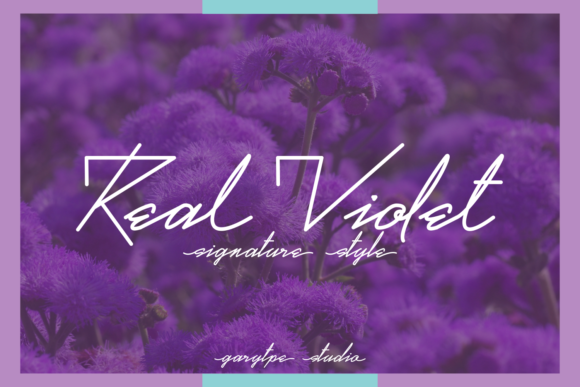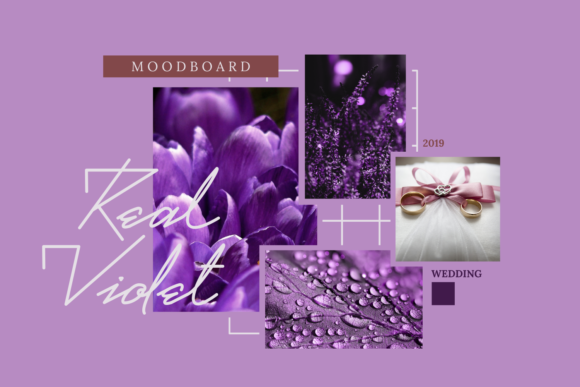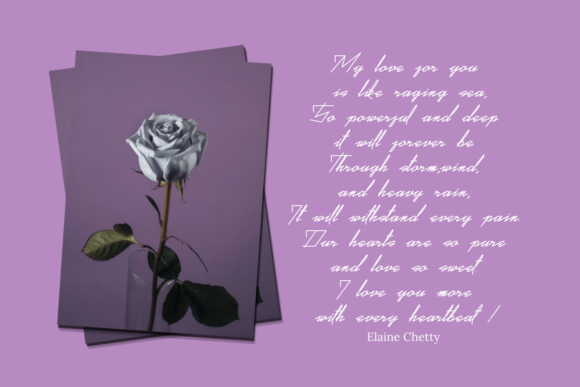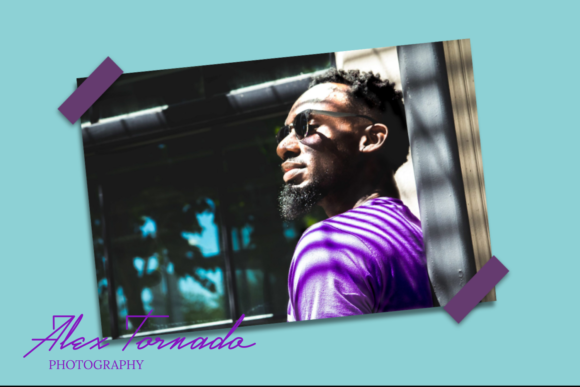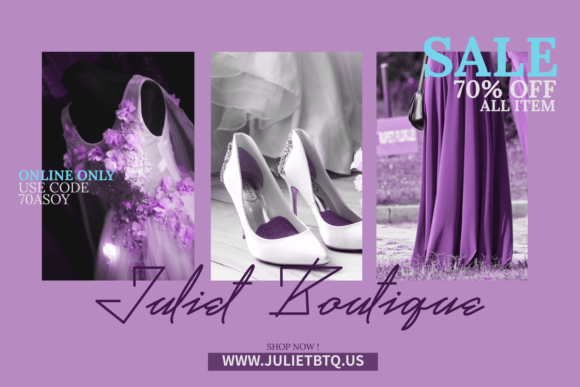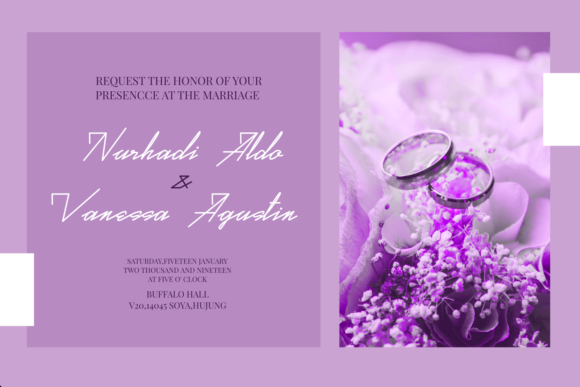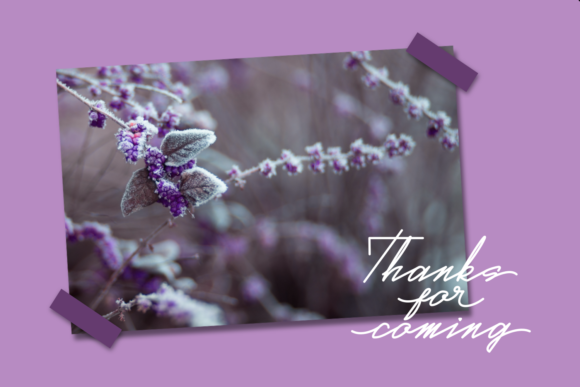
Real Violet Font
About Real Violet Font
The Real Violet is an amazing signature font. It has an elegant style and will give a handwritten touch to ever design.
It’s perfect for mood-board’s, wedding invitations, private signature quotes, watermarks, logos, flyers, posters, letterheads, apparel, and much more!